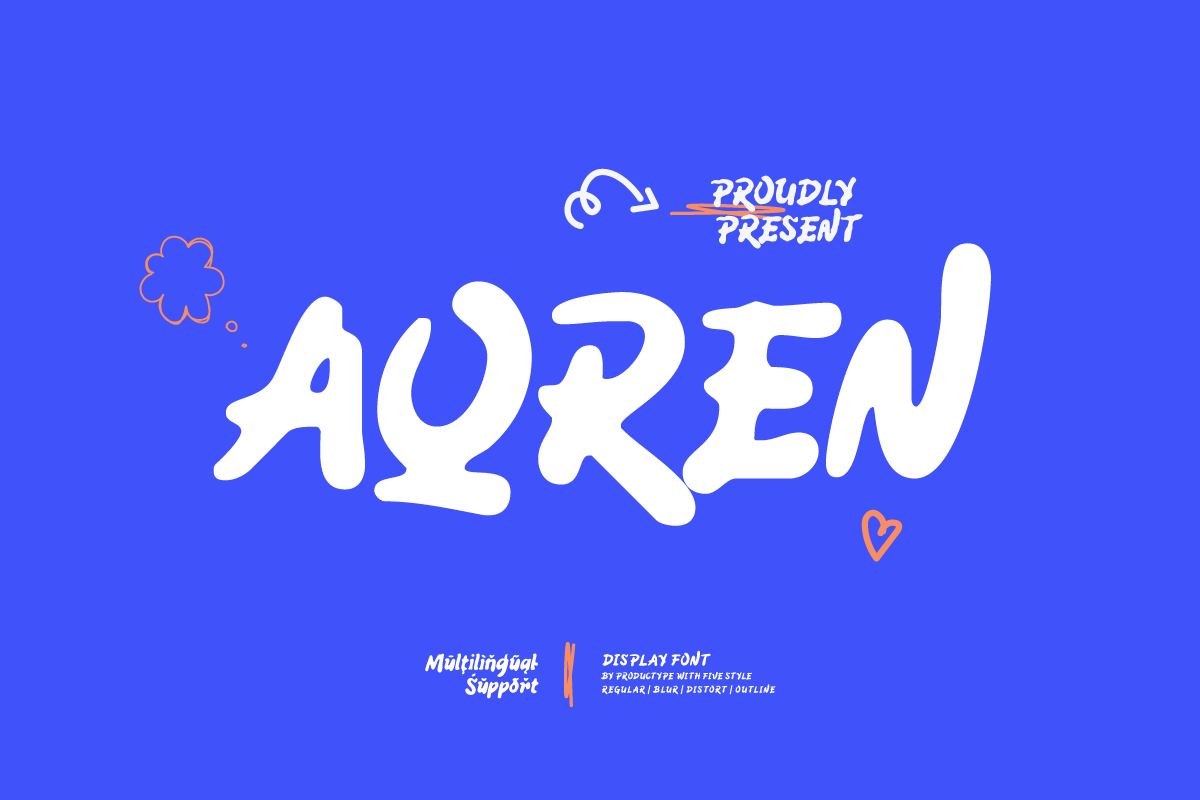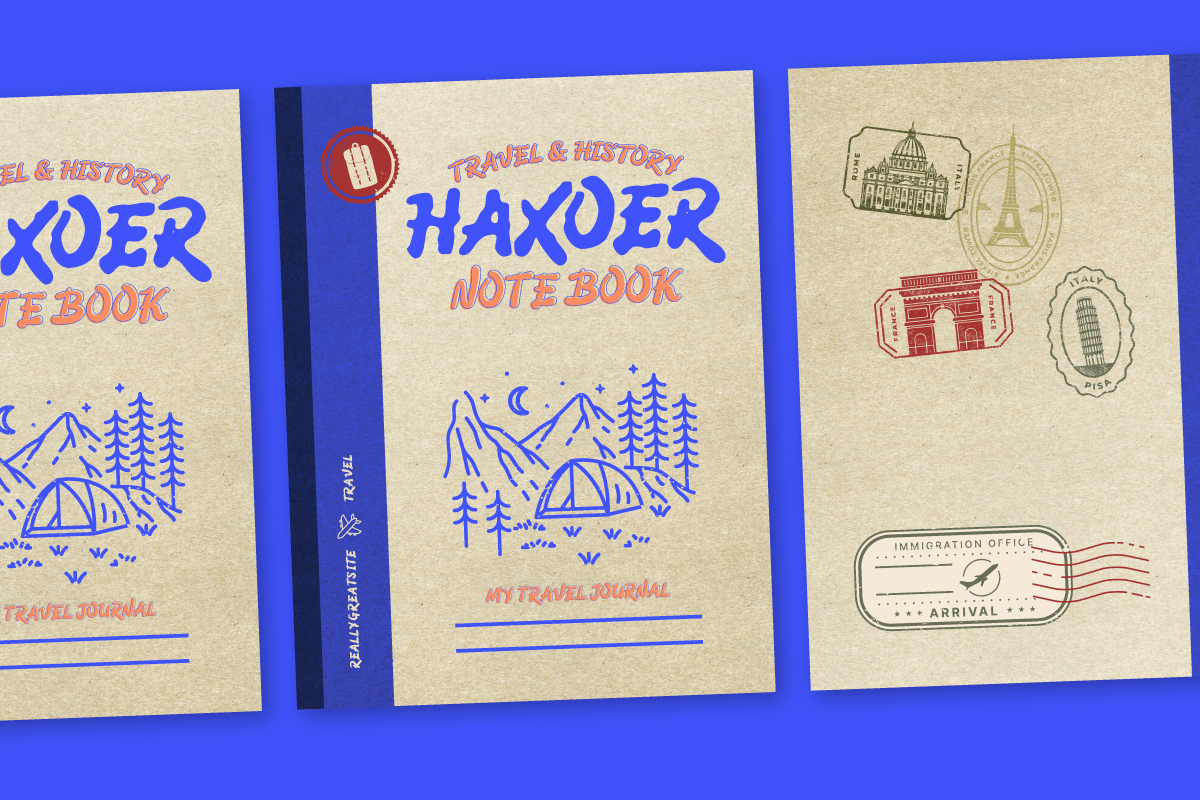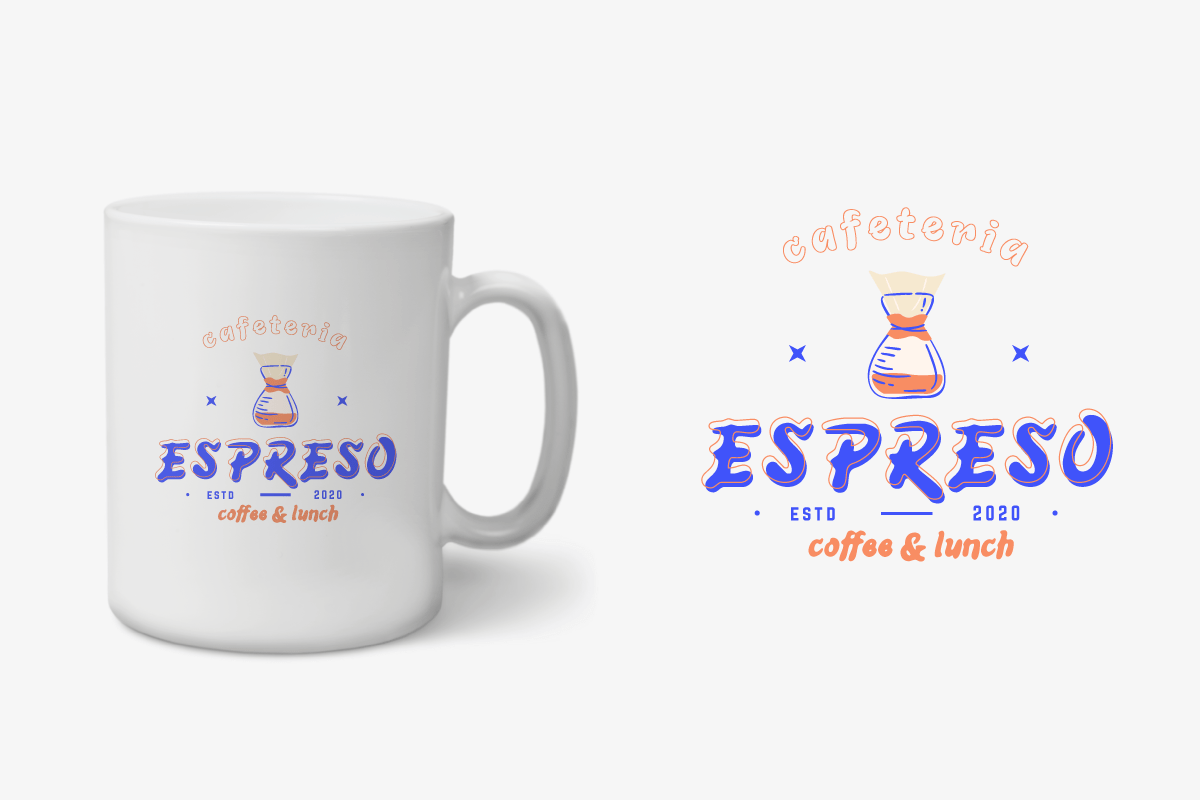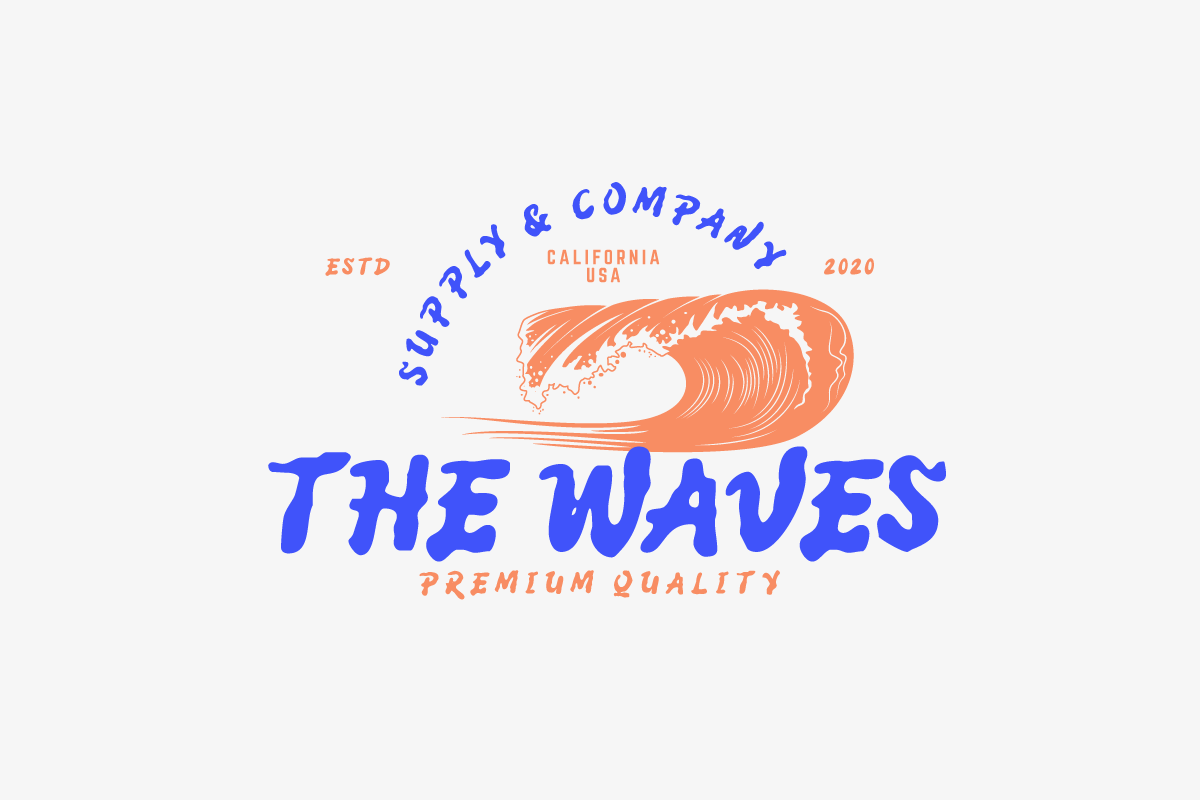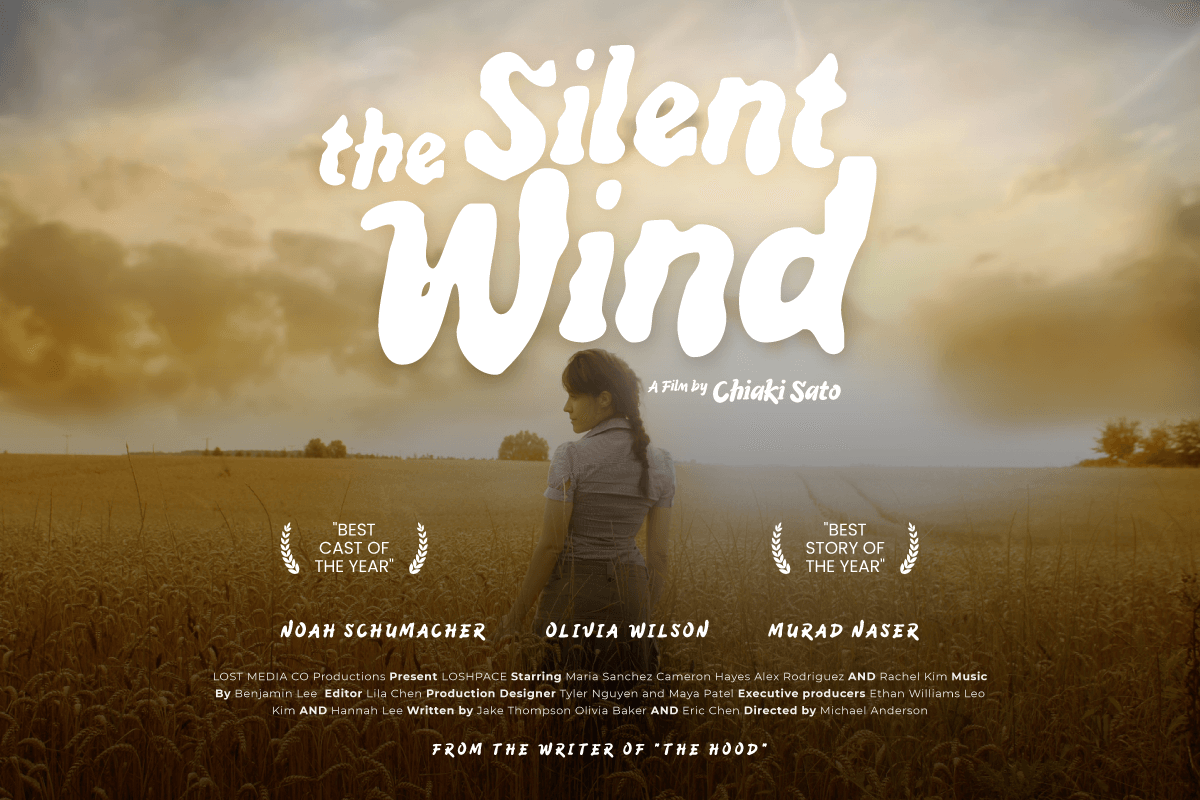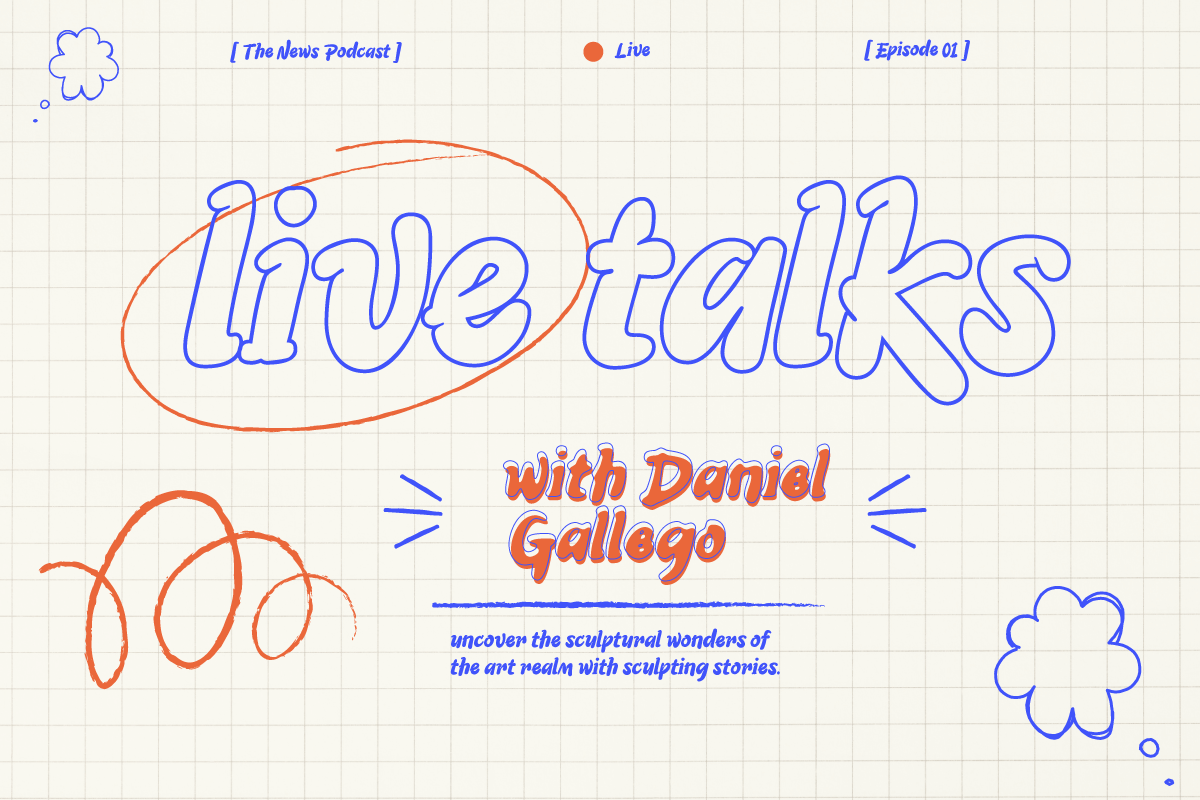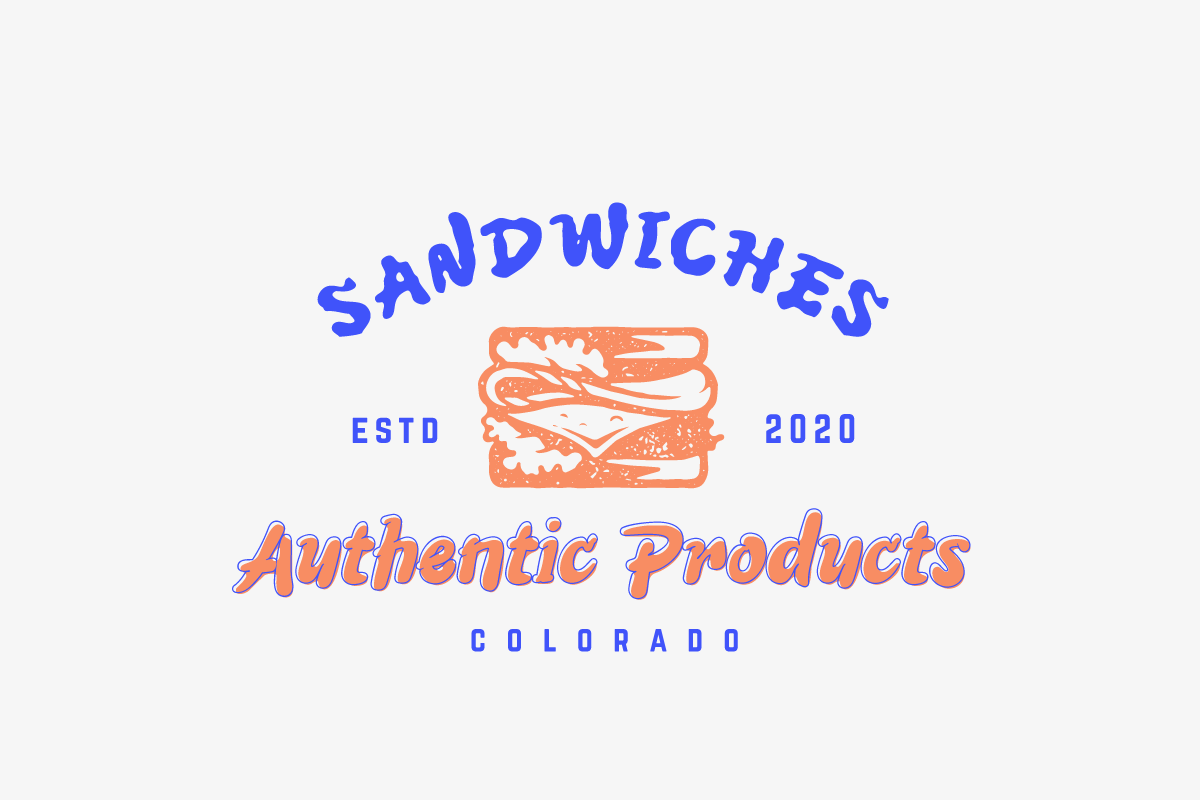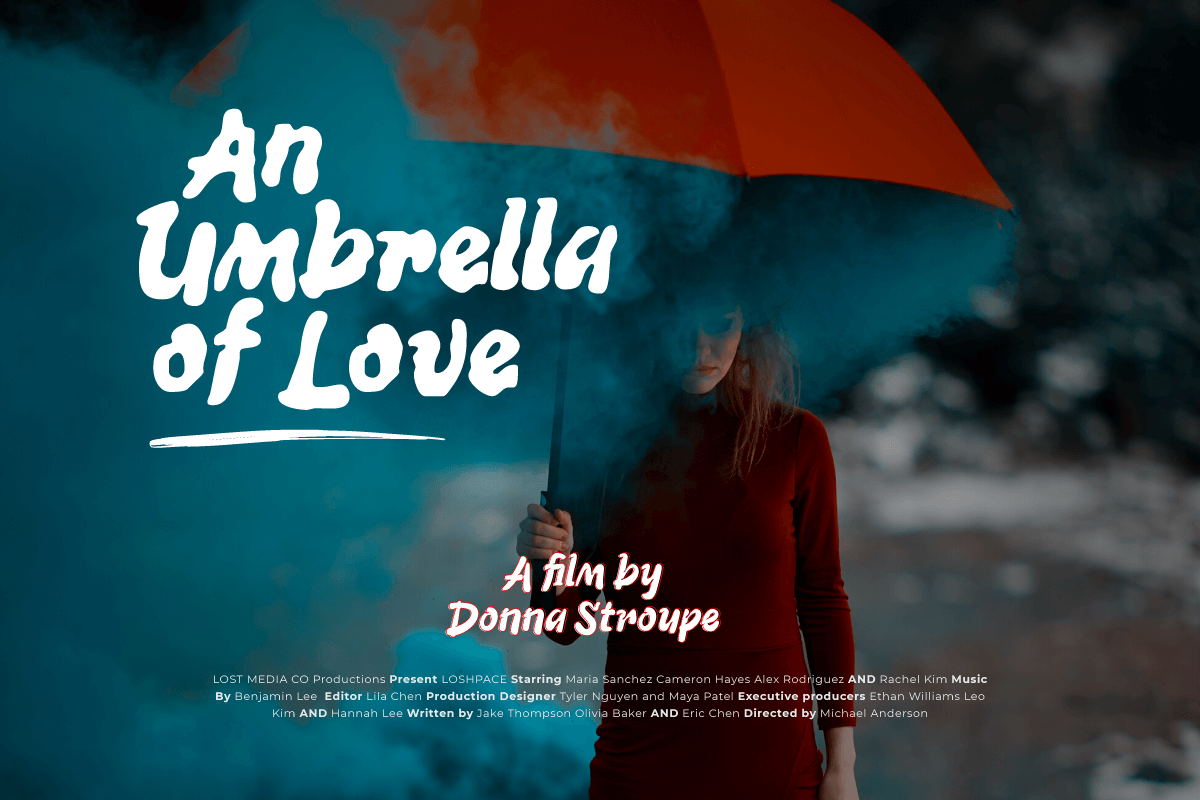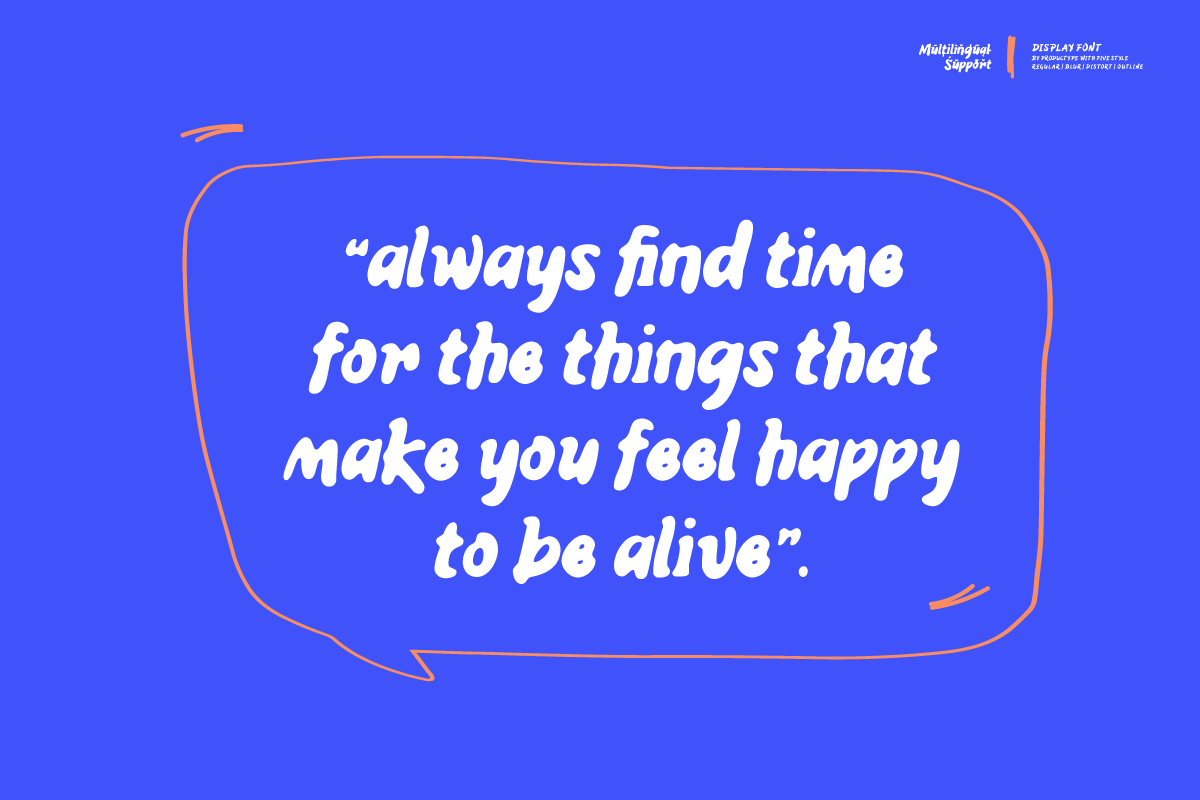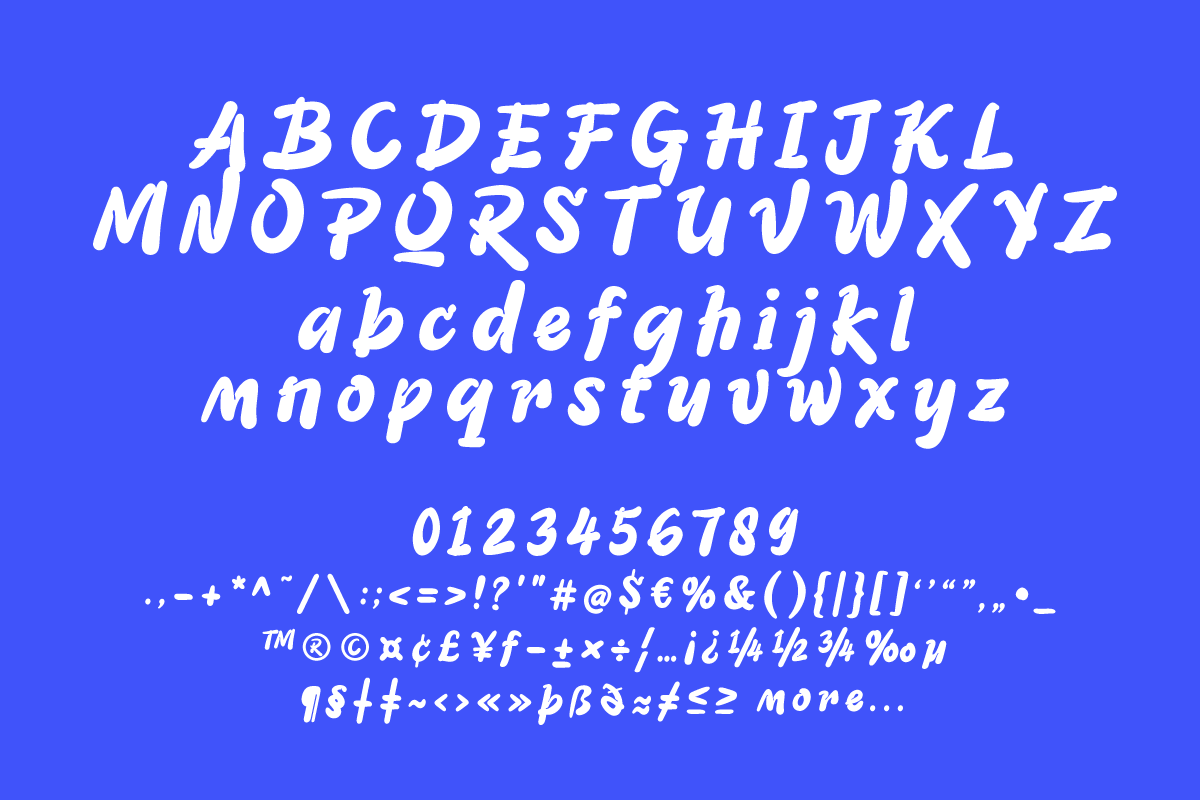
Aqren – Display Font
Regular
Regular-Outline
Distort
Blur
Blur-Outline
Welcome to the world of Aqren, where the beauty of handwriting combines with the dynamics of display. This font comes with five graduated styles that include Regular for a classic look, Outline for a touch of clear contours, Blur for a soft effect, and Distort for an experimental feel.
Aqren Specialty: Five Tiered Styles: Explore a variety of five Aqren style variants to create a unique and attractive design according to your wishes. A Touch of Handwritten Vulnerability: Every character in Aqren exudes a touch of handwritten vulnerability, creating an air of authenticity and humanity in every line.
Aqren is the perfect choice for projects that want a beautiful handwritten touch and a variety of tiered styles. From promotional materials to greeting cards, this font brings an unmatched personal element.